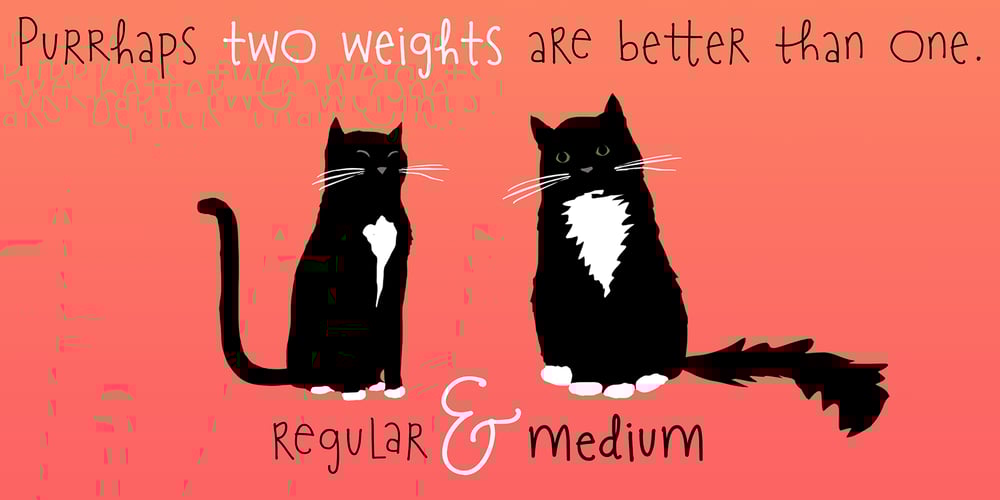
Meow Font Family was designed by Amy Dietrich and published by Atlantic Fonts. Meow contains 2 styles and family package options. Hunt no more. Meow is hand-lettering with tons of character (and characters!), so it’s perfect for cards, children’s books, or any packaging project that benefits from warmth and playfulness. If you’re feline like you need weight variation, Meow has two choices. Pounce on both fonts, and you catch a great deal.